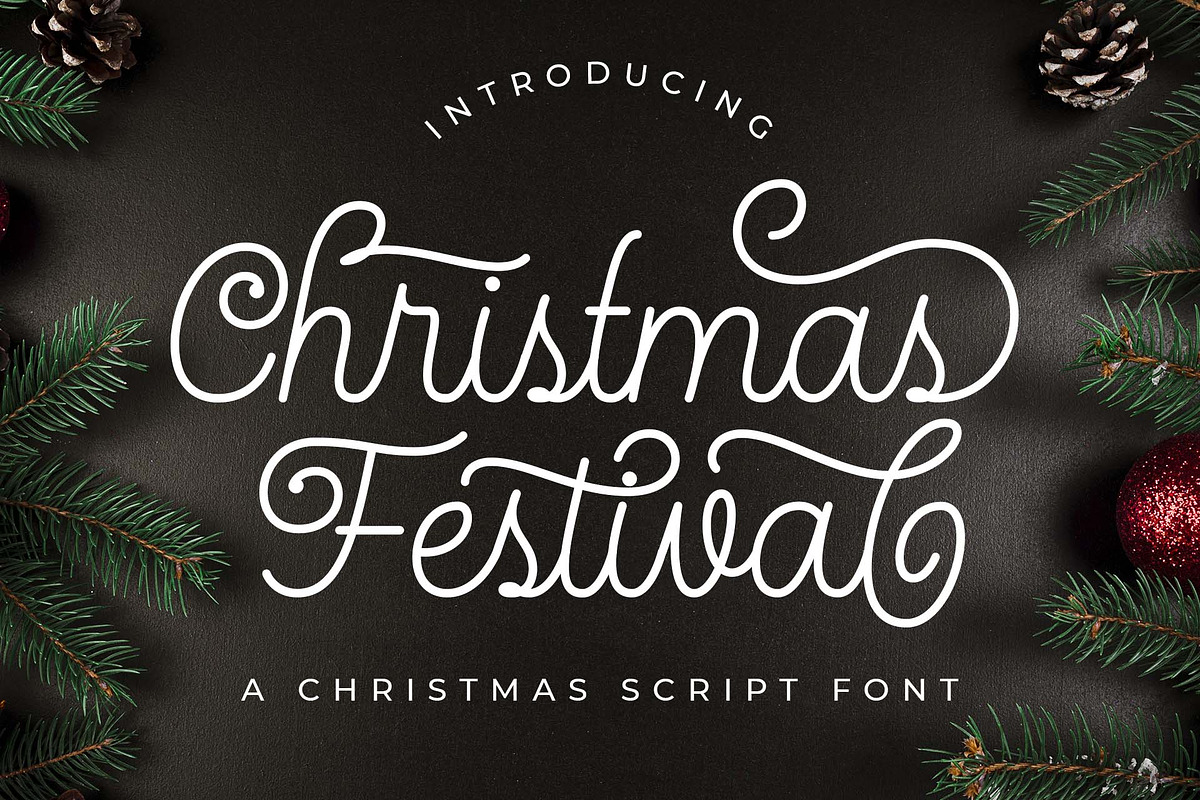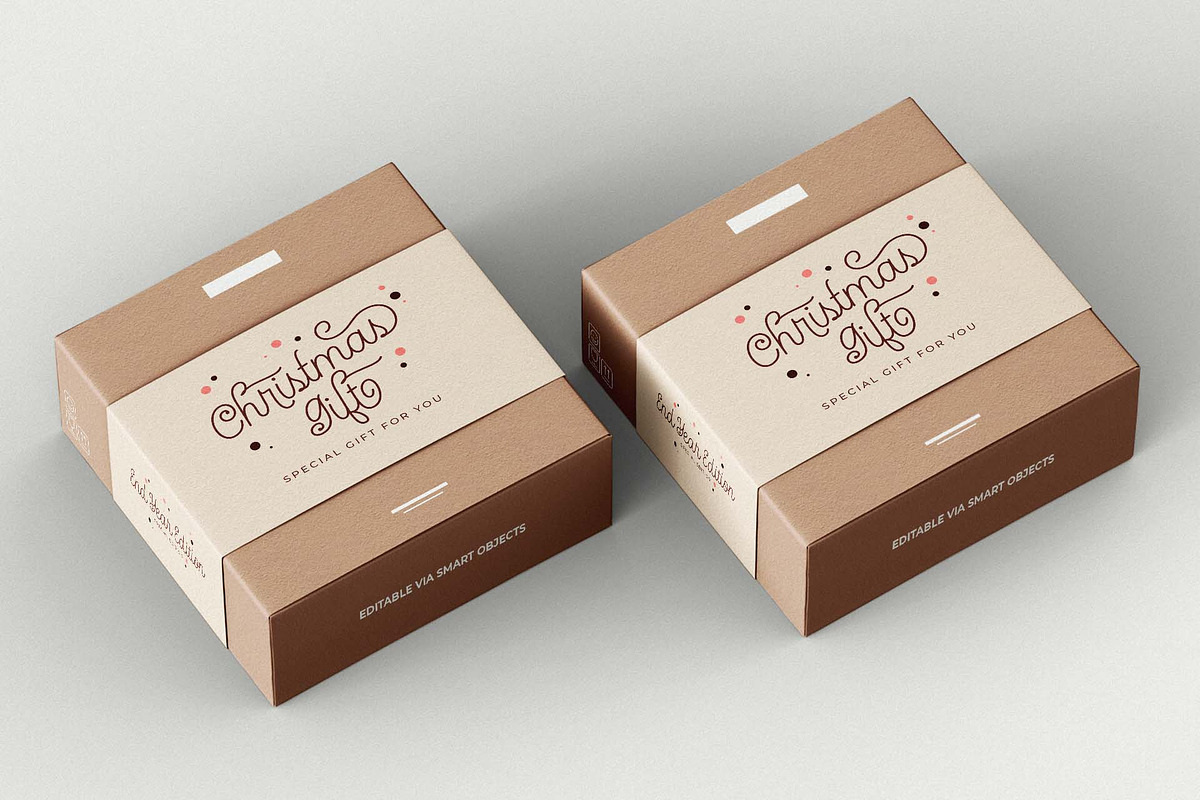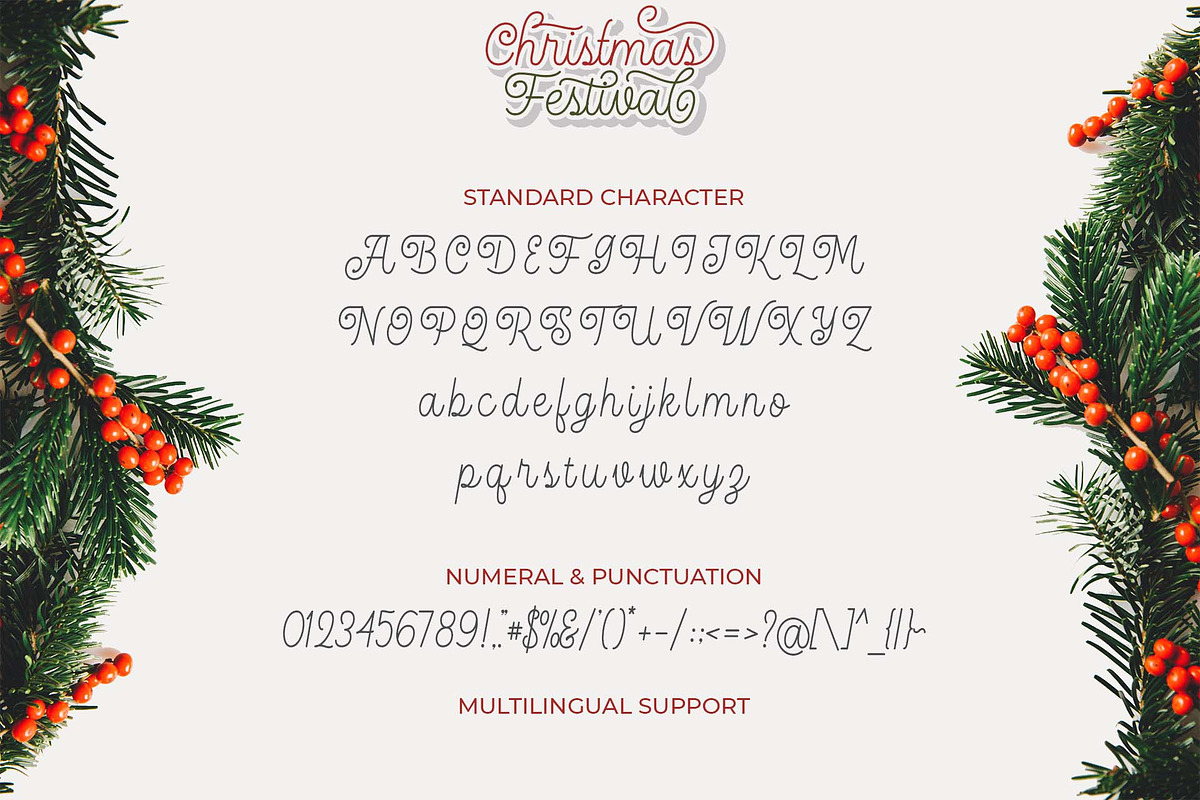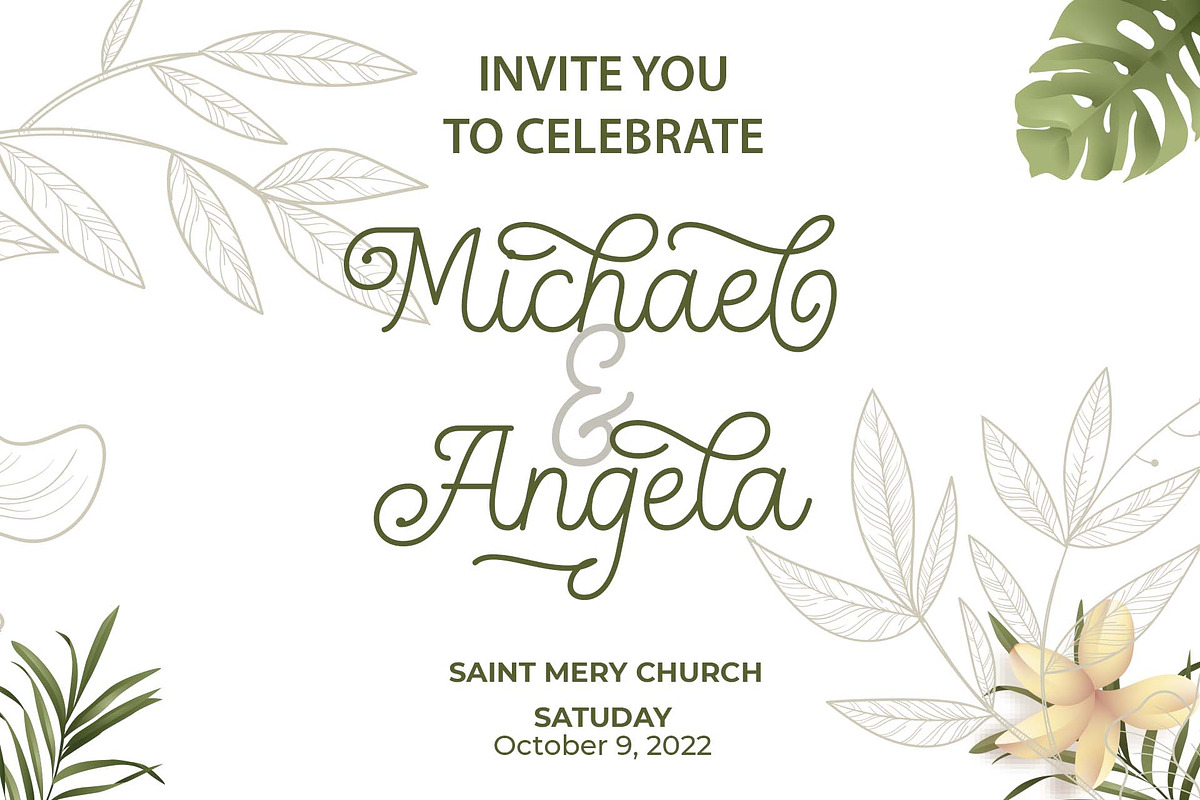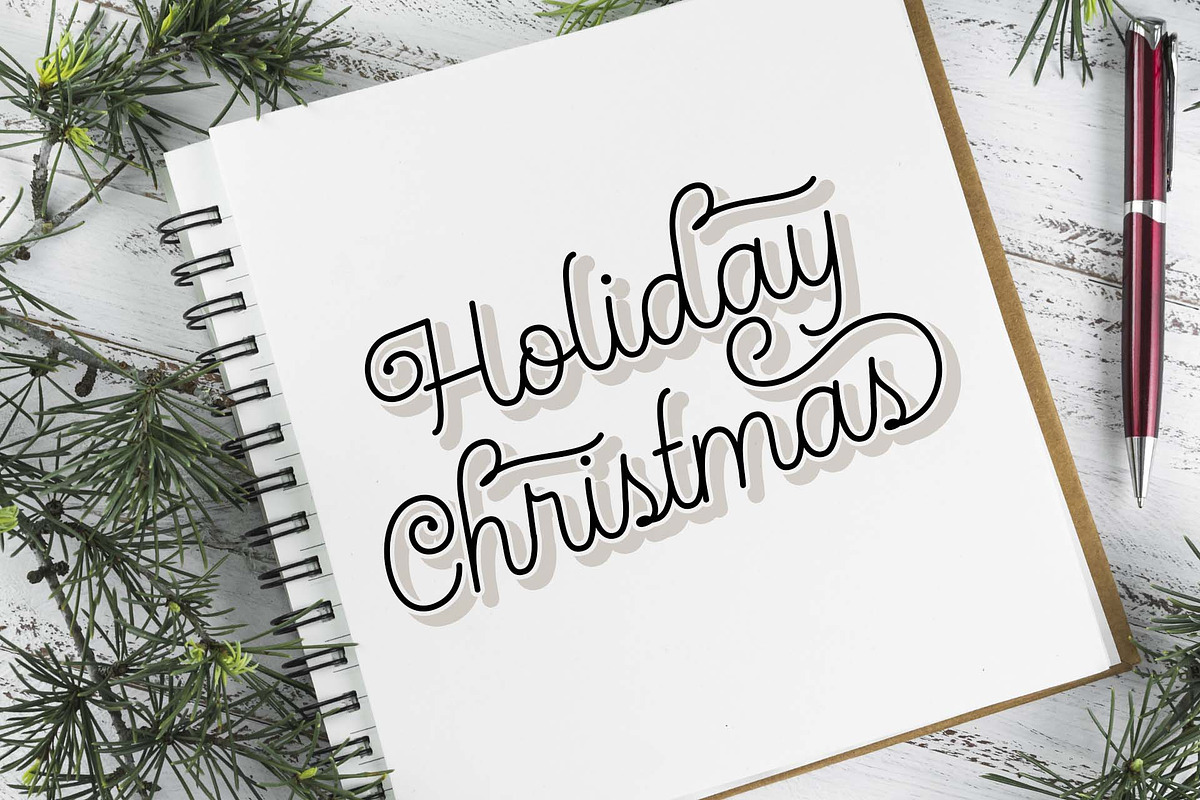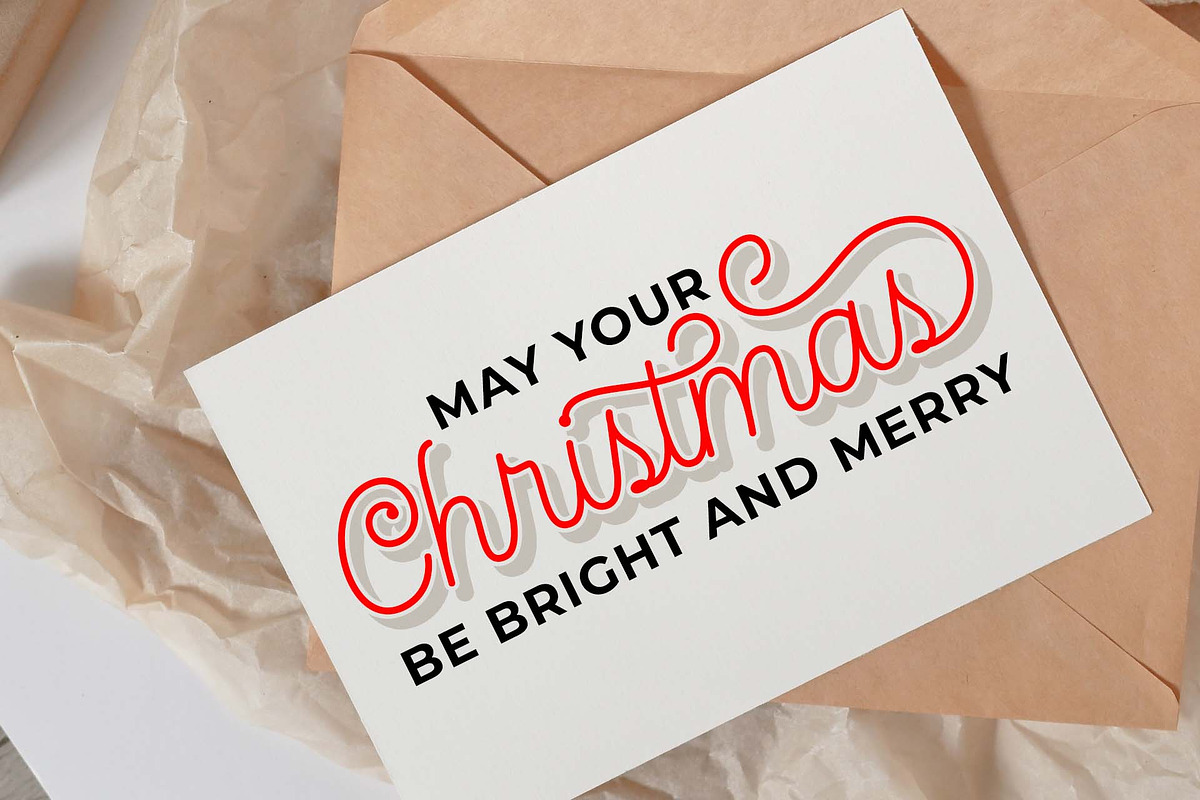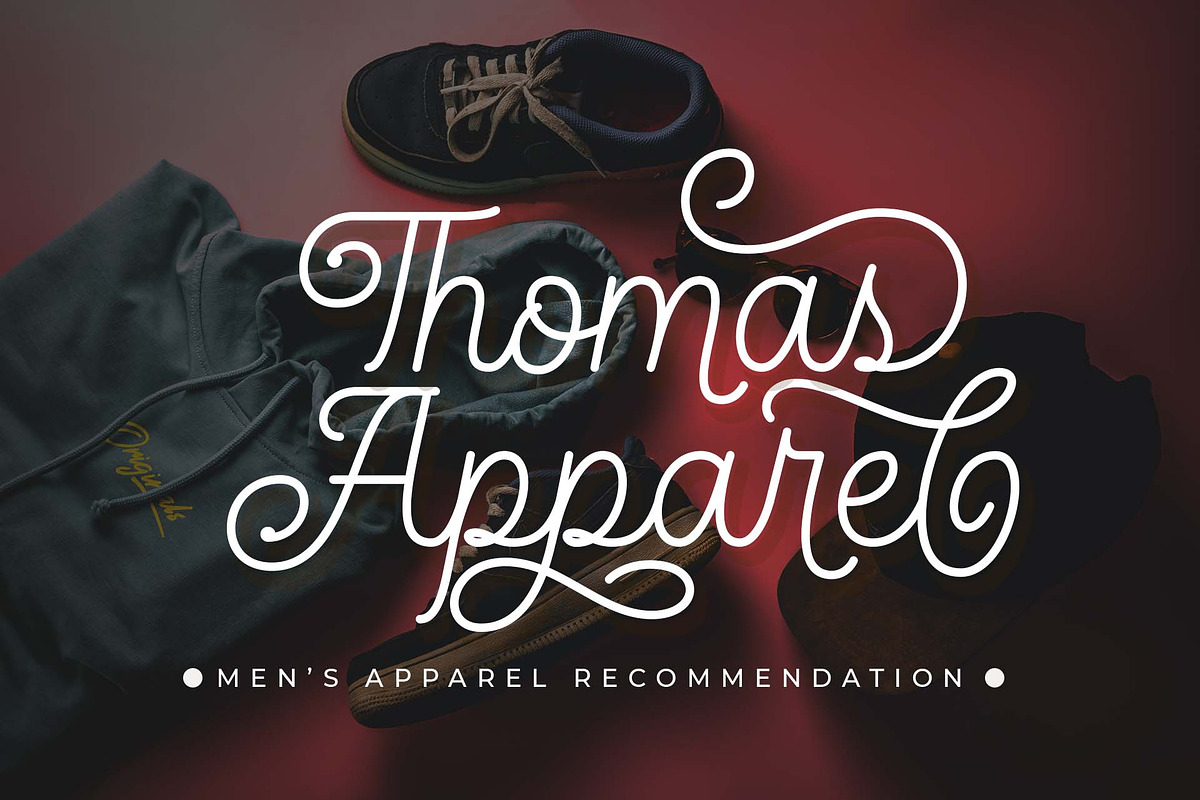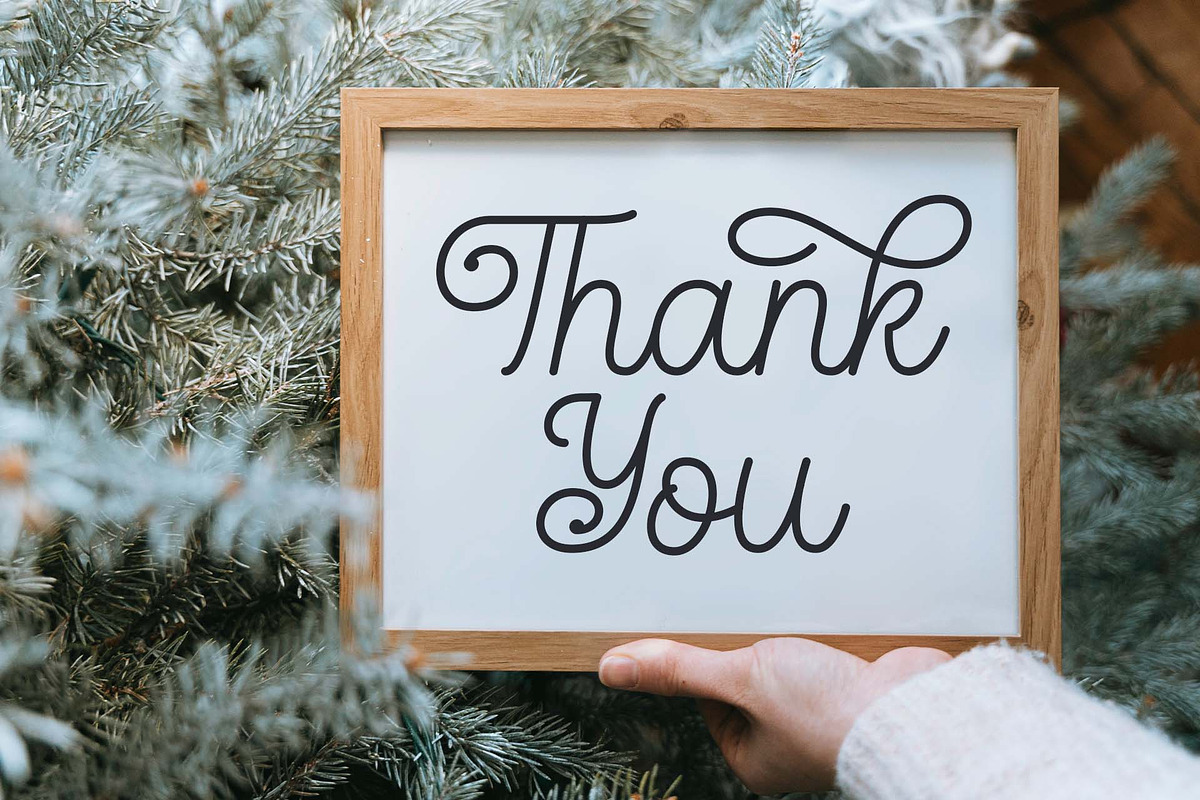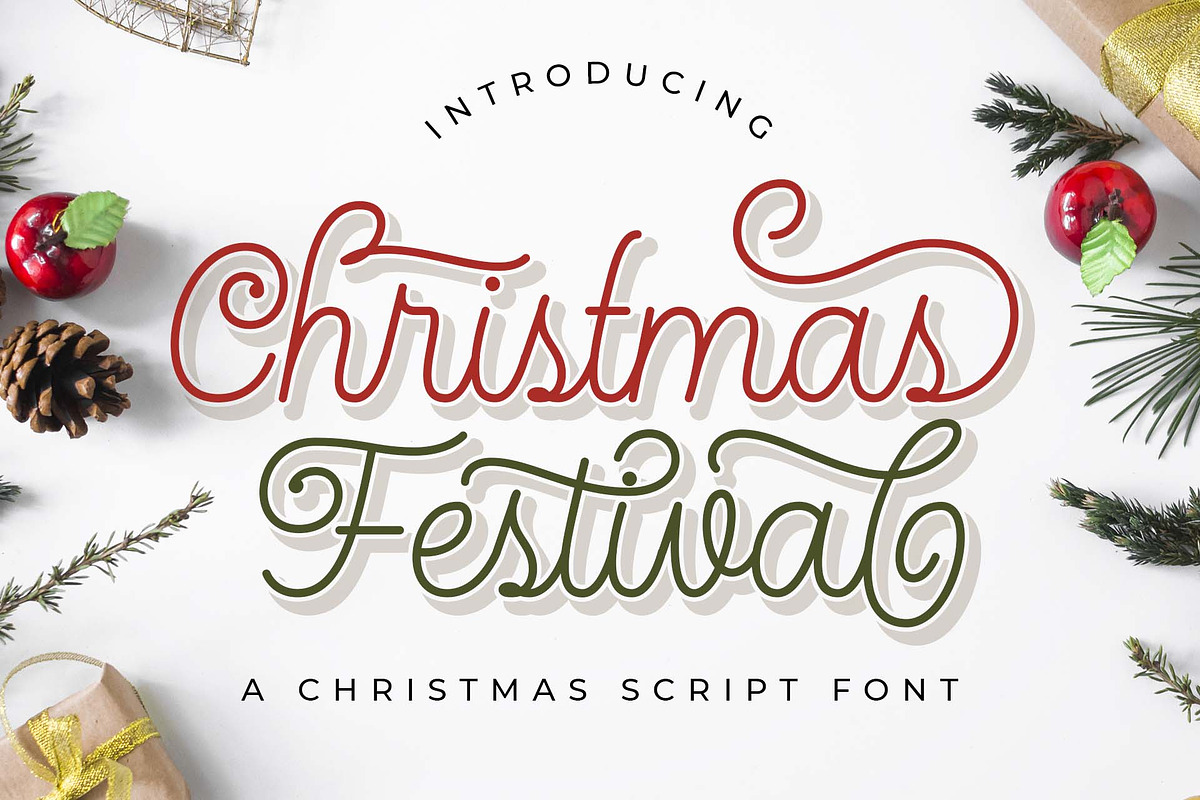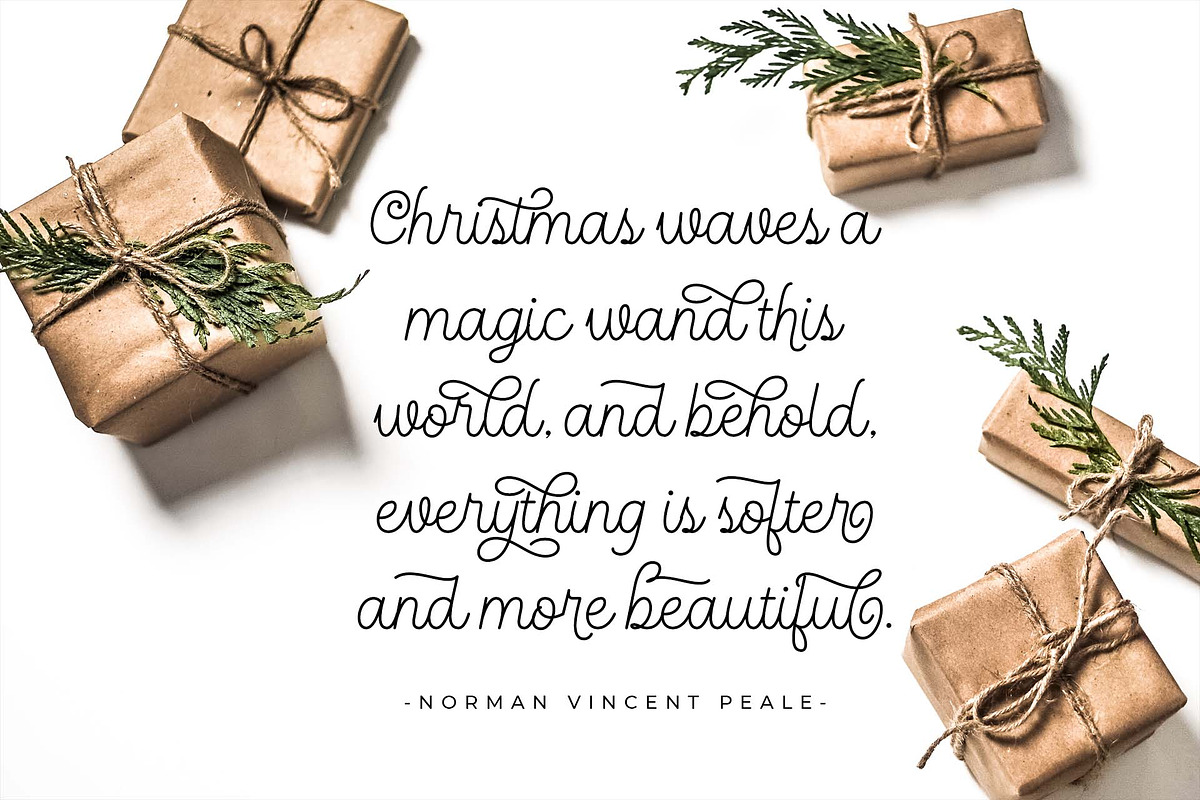
Christmas Festival
Introducing Christmas Festival. A magnificent curved monoline font with christmas theme. Use it to add vintage and mystique flavor to any design! It’s ready and perfectly fit for your logo designs, headline, music projects & social media posts, event poster, brand imagery, product packaging, quotes, merchandise, gift card, wedding invitation, etc